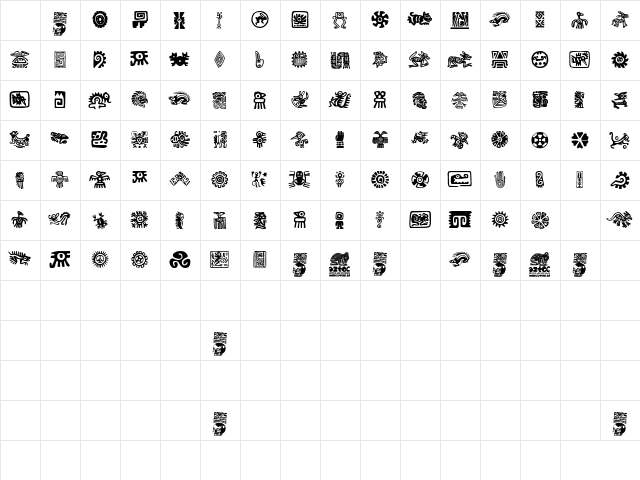
Aztecs Icons Regular
| Designer | Woodcutter Manero |
Design Context for Aztecs Icons Typeface
Aztecs Icons is a composed and adaptable typeface that performs quietly and consistently across a wide range of design contexts.